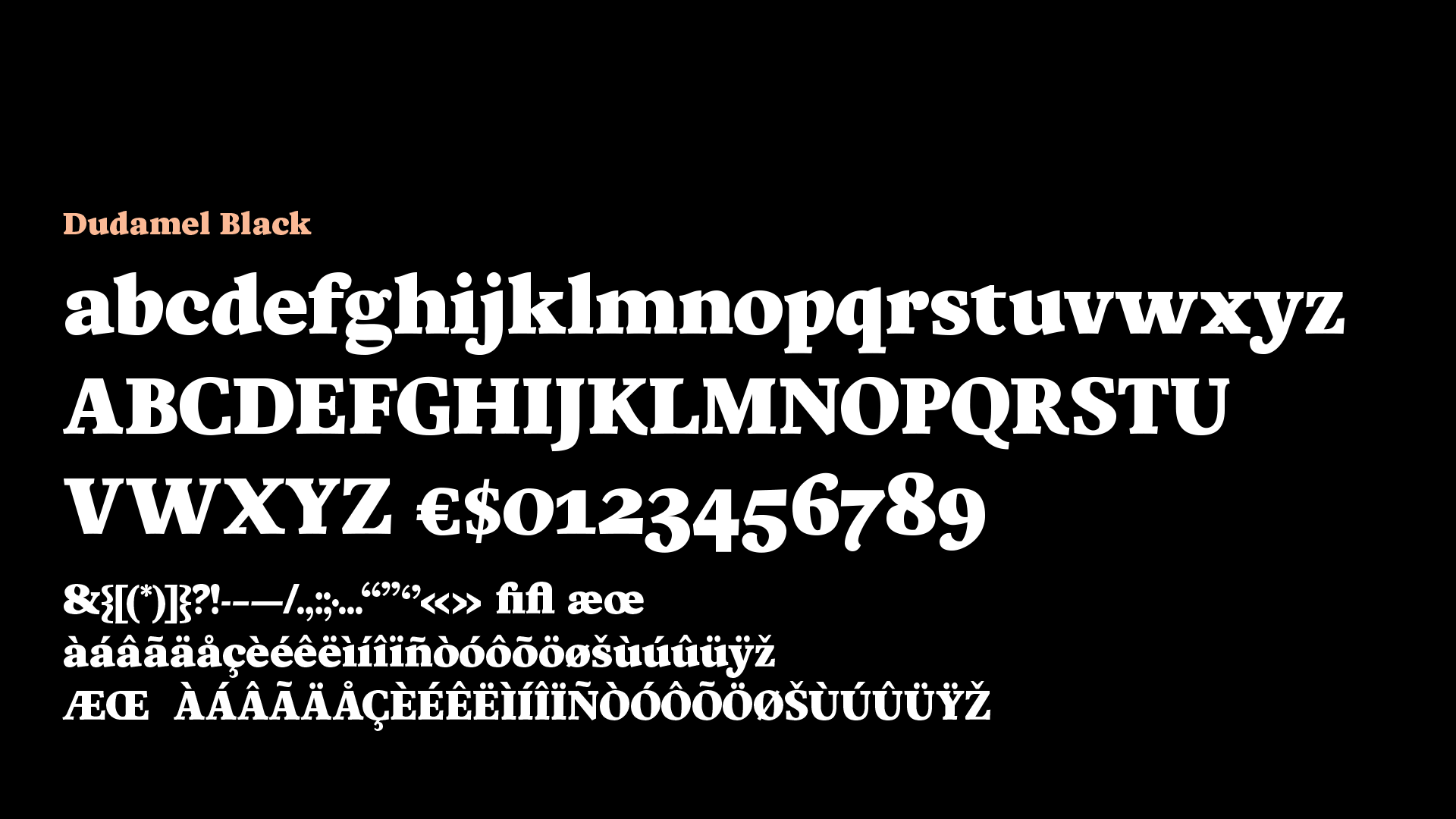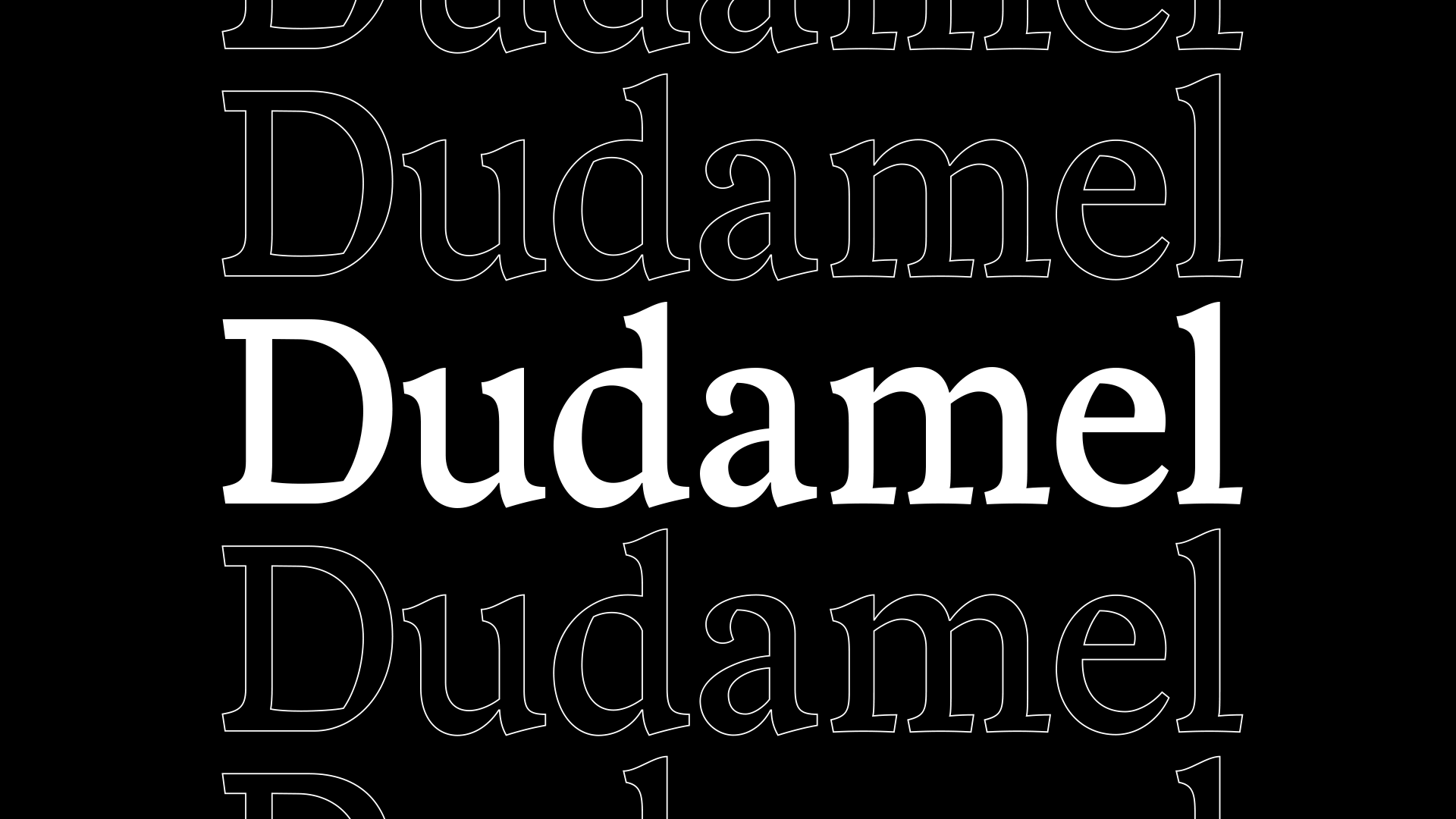
Dudamel
Dudamel is a typeface inspired by the humanist font, Garamond, and slightly infused with the gestures of energetic orchestral composers. This typeface is meant to be used for setting large amounts of text within magazines and other printed ephemera. It fuses calligraphic contrast with asymmetrical slab-like serifs to maintain an even rhythm throughout a body of text.
This typeface was born out of a strange love for typography that many designers have, but the average person may not understand. I’m fascinated by the way it has evolved over time and shaped the way we communicate with each other. This curiosity is what drove me to design a typeface. However, having absolutely no previous experience with type design, I faced every struggle that a person starting out would. As a result, Dudamel is pure distillation of my learnings and process. What started out as blind curiosity and excitement has transformed into grounded knowledge and understanding.
One of my biggest challenges with this project was balancing the high energy I was looking for with the calm consistency that is needed for a successful typeface. I was always drawing too many things, trying to put every idea into each letter. What helped me get over this struggle was to see an analogy between letterforms and music. Once I started to think about how the letterforms sounded as a group of instruments, I was able to create more balance.
Although Dudamel is far from complete, I’m proud of where it has landed in the 5 weeks we’ve had to learn, grow, and design together.